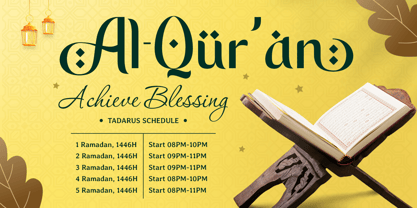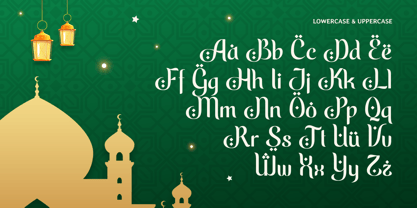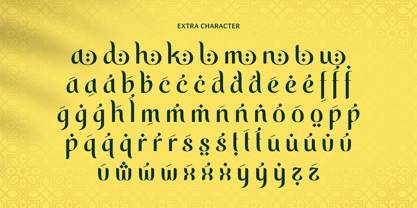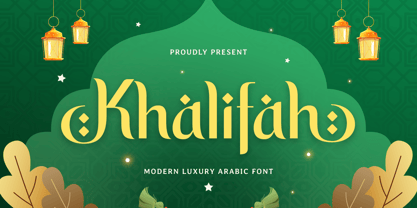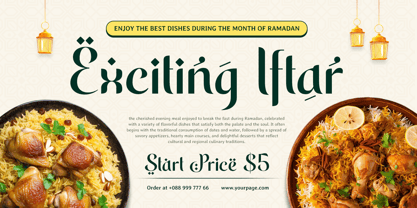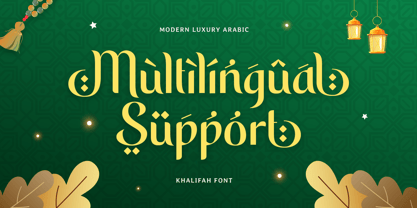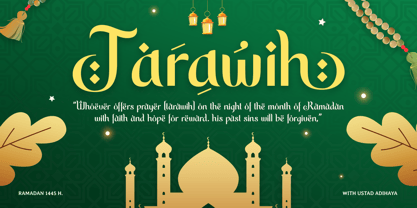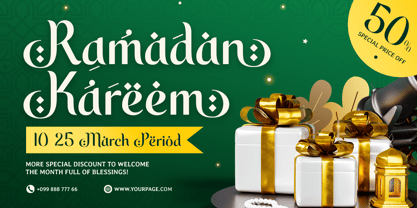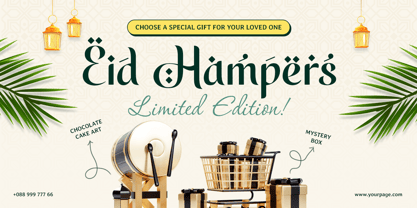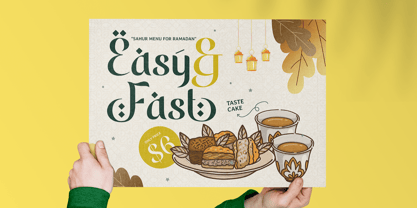
Khalifah
The Khalifah Font Family was designed by Zamroni Hamzah and published by Sensatype Studio. Khalifah contains 1 styles. More about this family
Khalifah - Modern Luxury Arabic Font
Khalifah is a sophisticated Arabic font that exudes elegance and modernity, making it ideal for luxury branding, Ramadan-themed designs, and high-end publications. Its clean, flowing lines and contemporary aesthetic are designed to bring a touch of refinement to logos, invitations, packaging, and digital media.
Inspired by the grandeur of Islamic art and the seamless beauty of Arabic calligraphy, Khalifah captures a perfect balance of tradition and modern design. Whether you’re working on a Ramadan campaign, a corporate branding project, or an elegant invitation, this font ensures your work stands out with unmatched sophistication.
Transform your creative projects with Khalifah, a font crafted for designers who value luxury, culture, and versatility. Perfect for both digital and print media, it’s a must-have for your design toolkit.
Khalifah Modern Luxury Arabic Font Features:
• Elegant and Contemporary Arabic Typography
• Uppercase and Lowercase
• Opentype Features
Multilingual Characters available for:
Afrikaans, Albanian, Asu, Basque, Bemba, Bena, Breton, Chiga, Cornish, Dutch, English, Estonian, Filipino, Finnish, Friulian, Galician, German, Gusii, Indonesian, Irish, Italian, Kabuverdianu, Kalenjin, Kinyarwanda, Luo, Luxembourgish, Luyia, Machame, Makhuwa-Meetto, Makonde, Malagasy, Manx, Morisyen, North Ndebele, Nyankole, Oromo, Portuguese, Quechua, Romansh, Rombo, Rundi, Rwa, Samburu, Sango, Sangu, Scottish Gaelic, Sena, Shambala, Shona, Soga, Somali, Spanish, Swahili, Swedish, Swiss.